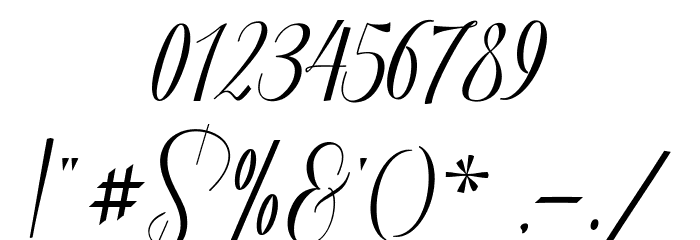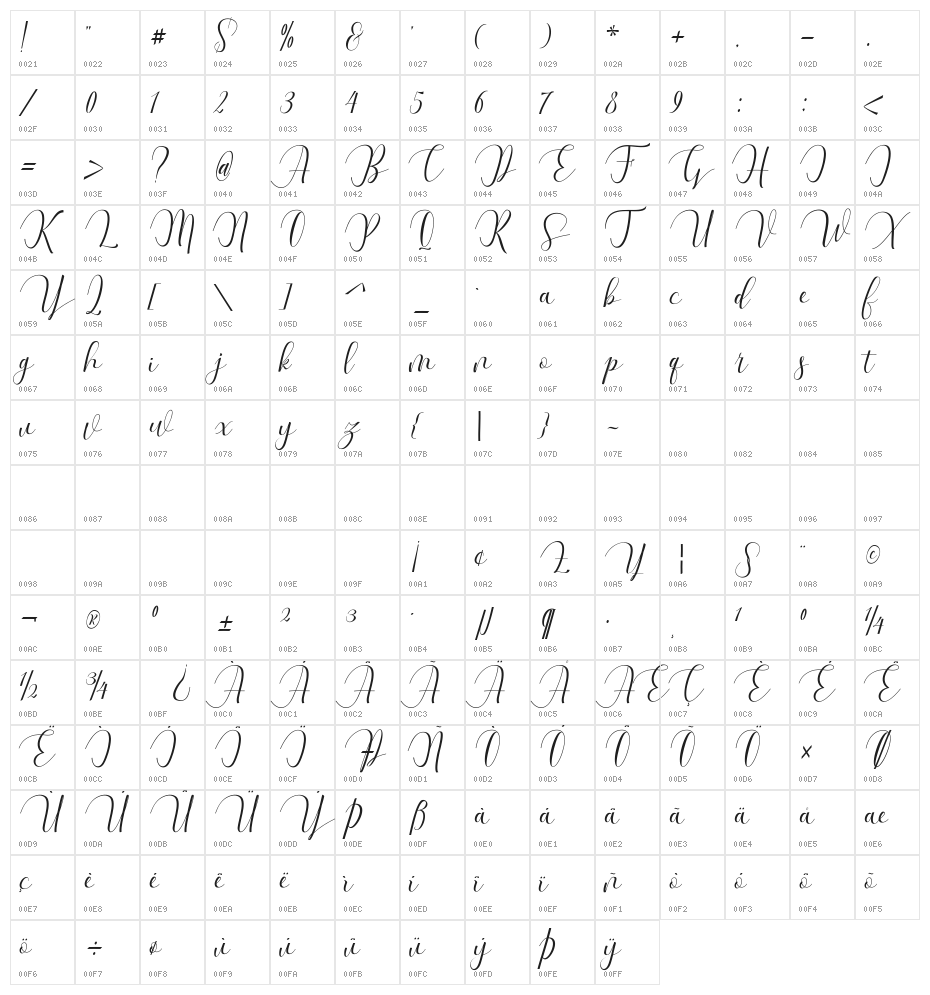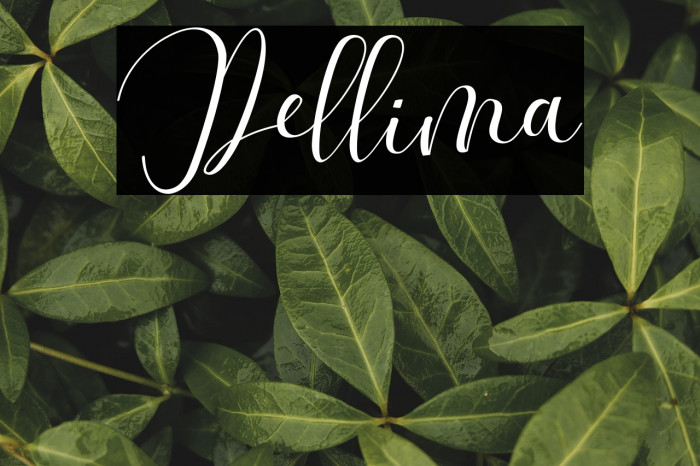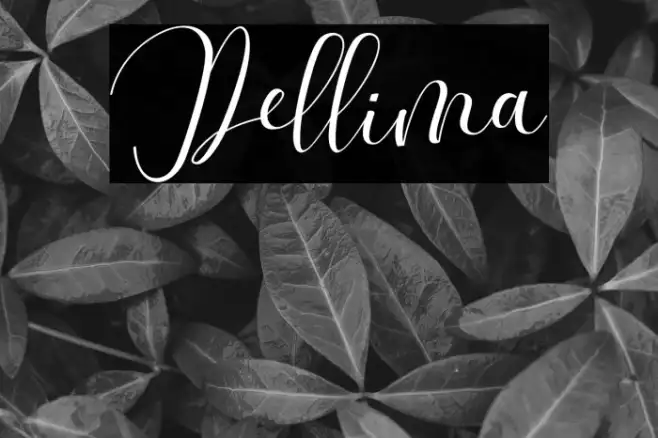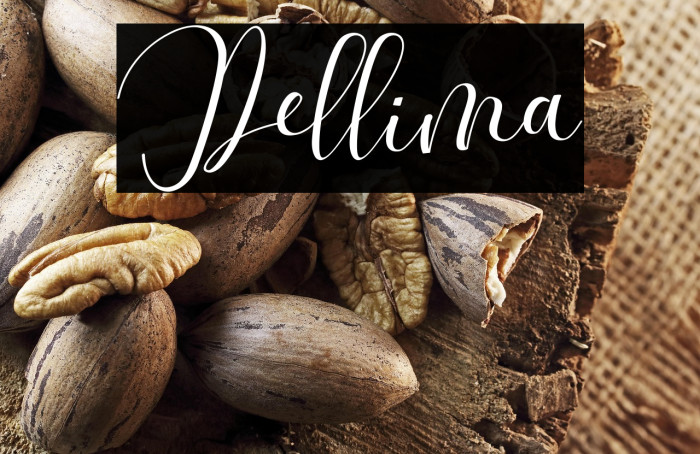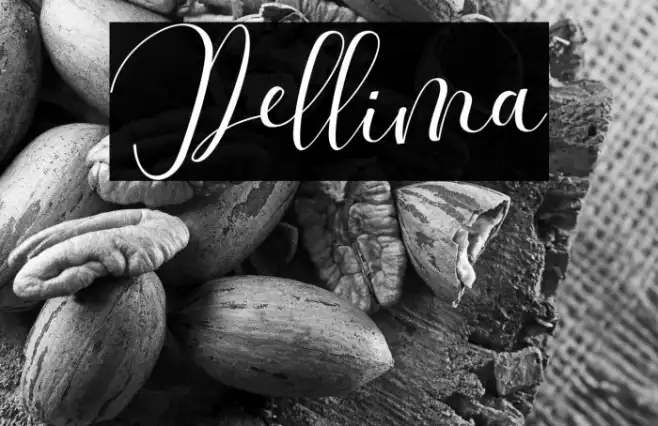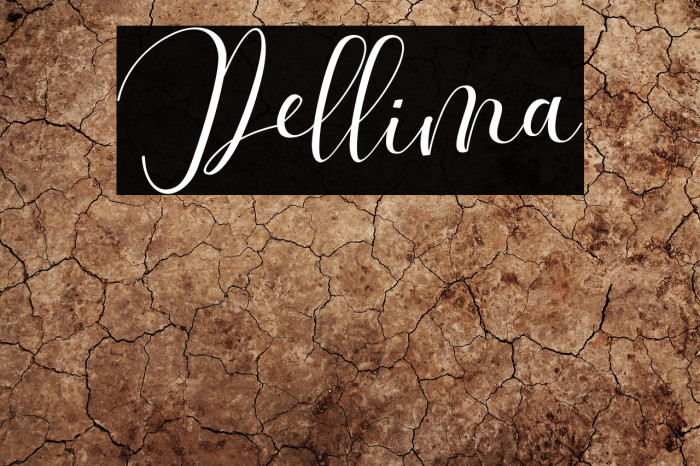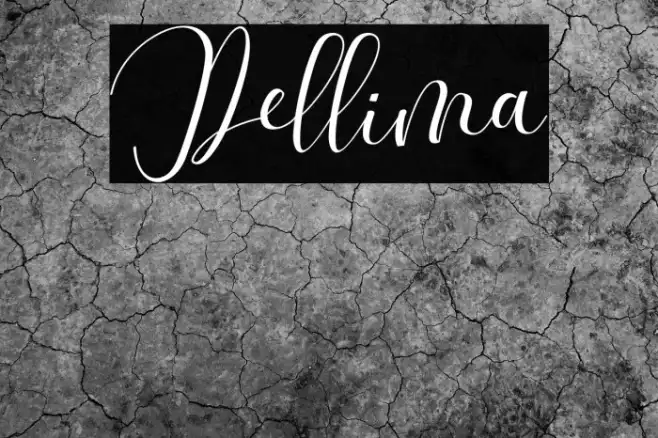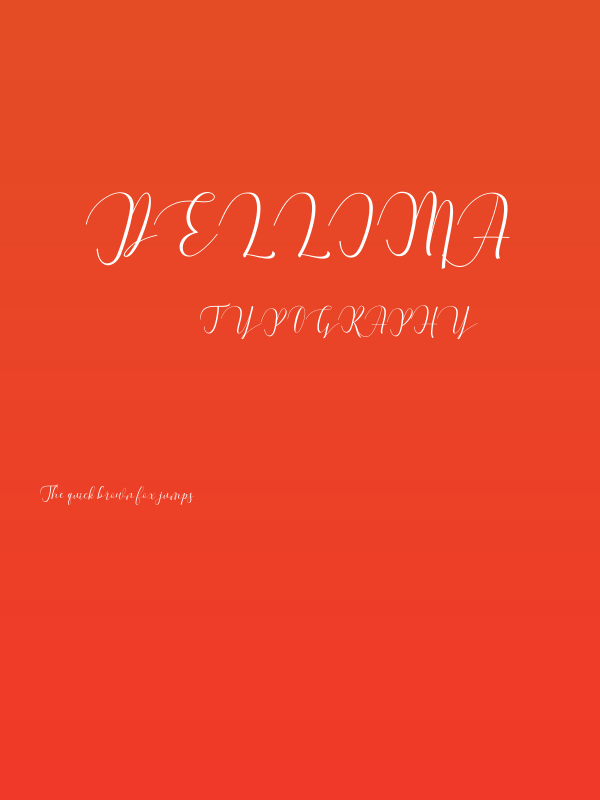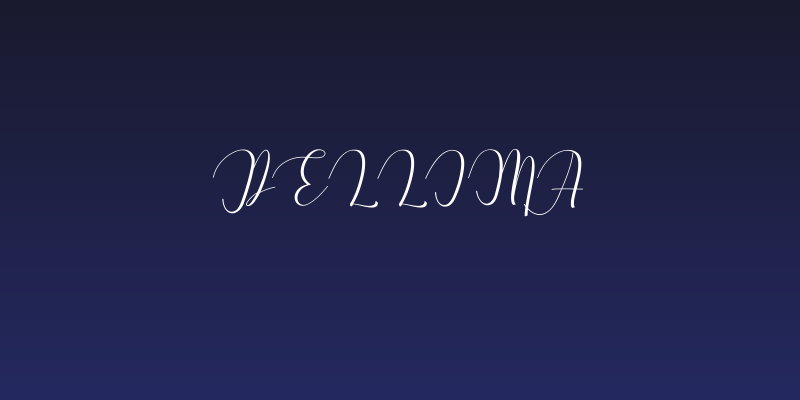
Dellima Font
Dellima Description
This elegant script font features flowing, interconnected characters that exude a sense of sophistication and grace. The uppercase letters are particularly ornate, with sweeping curves and loops that add a decorative flair. The lowercase letters maintain a consistent style, with smooth transitions and a slightly slanted orientation that enhances readability. The numerals are stylish yet clear, complementing the overall aesthetic. Special characters are thoughtfully designed, maintaining the font's cohesive look. This font is perfect for projects that require a touch of elegance and class.
| Proposed Projects | Ideal for wedding invitations, elegant branding, high-end product packaging, and personal stationery. |